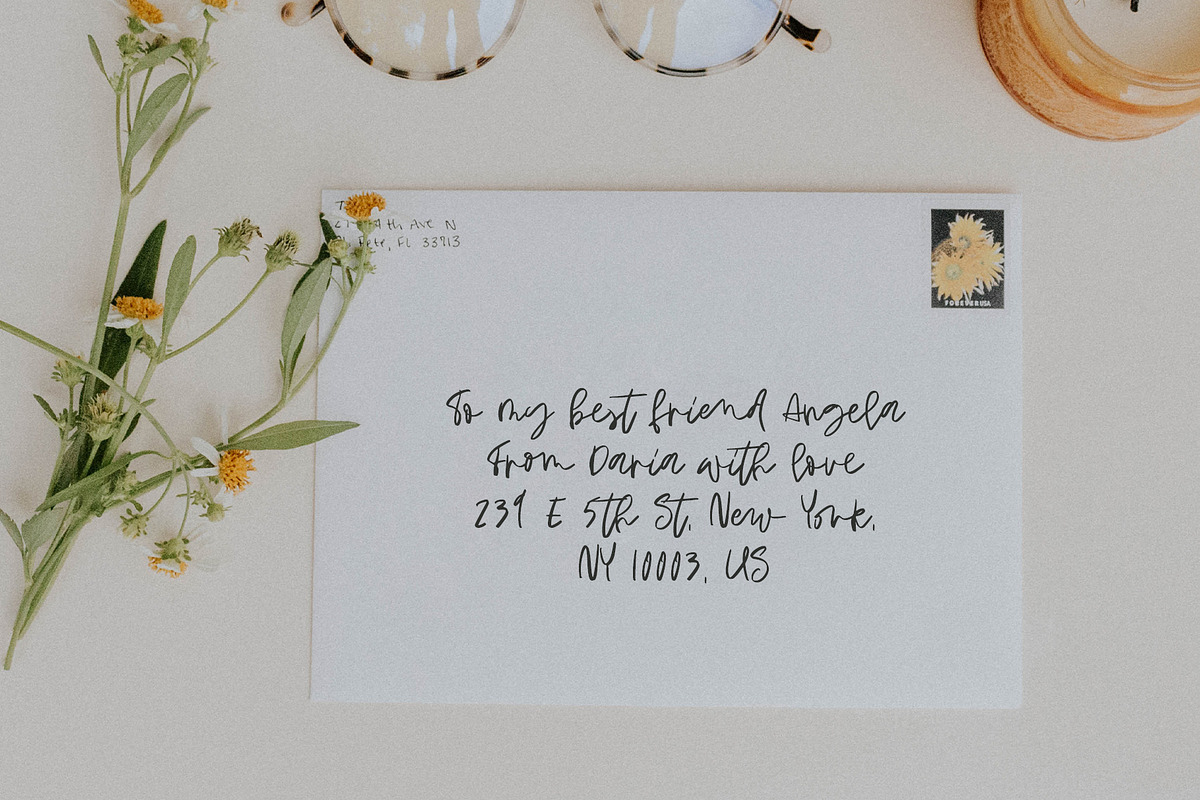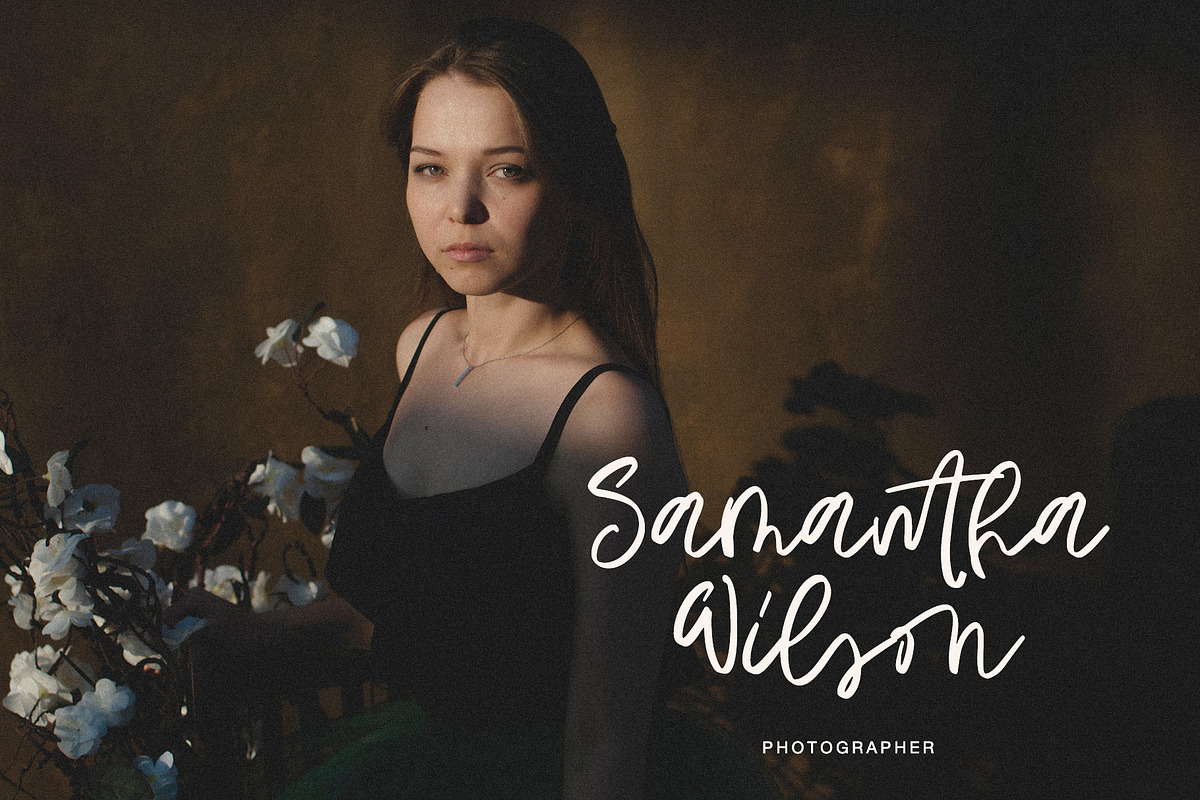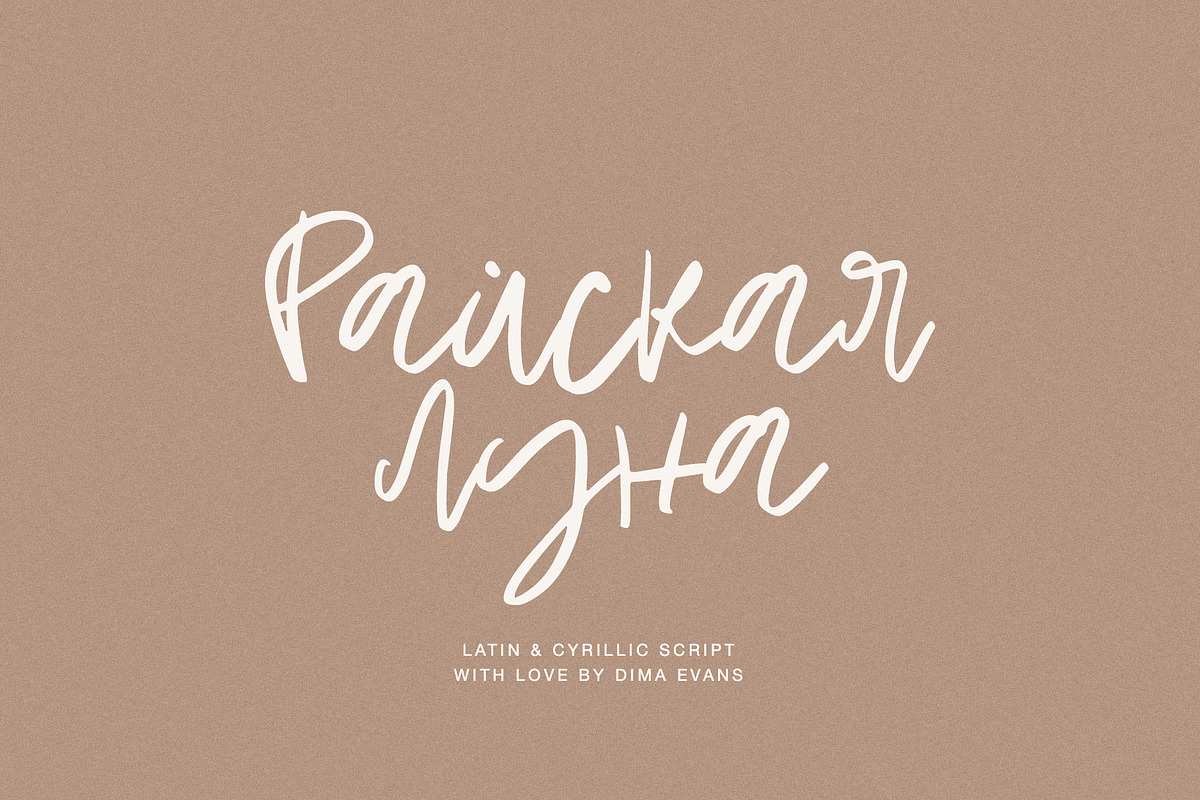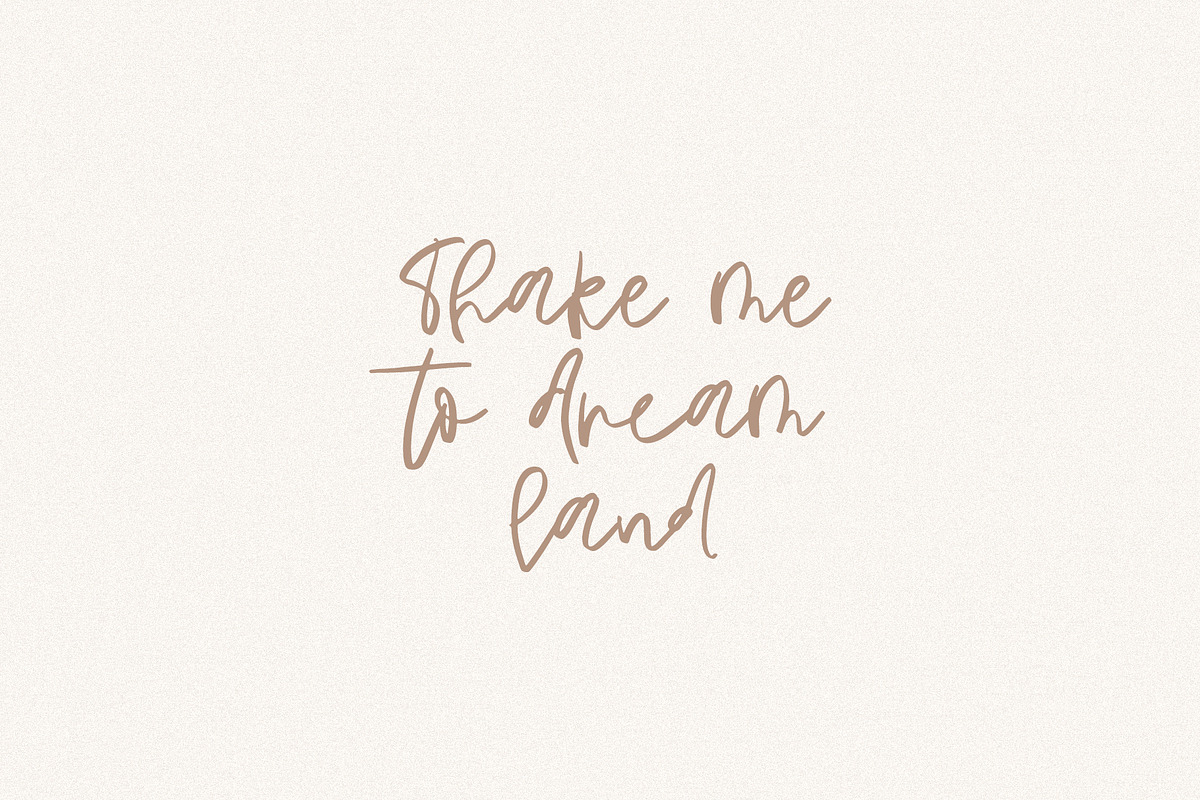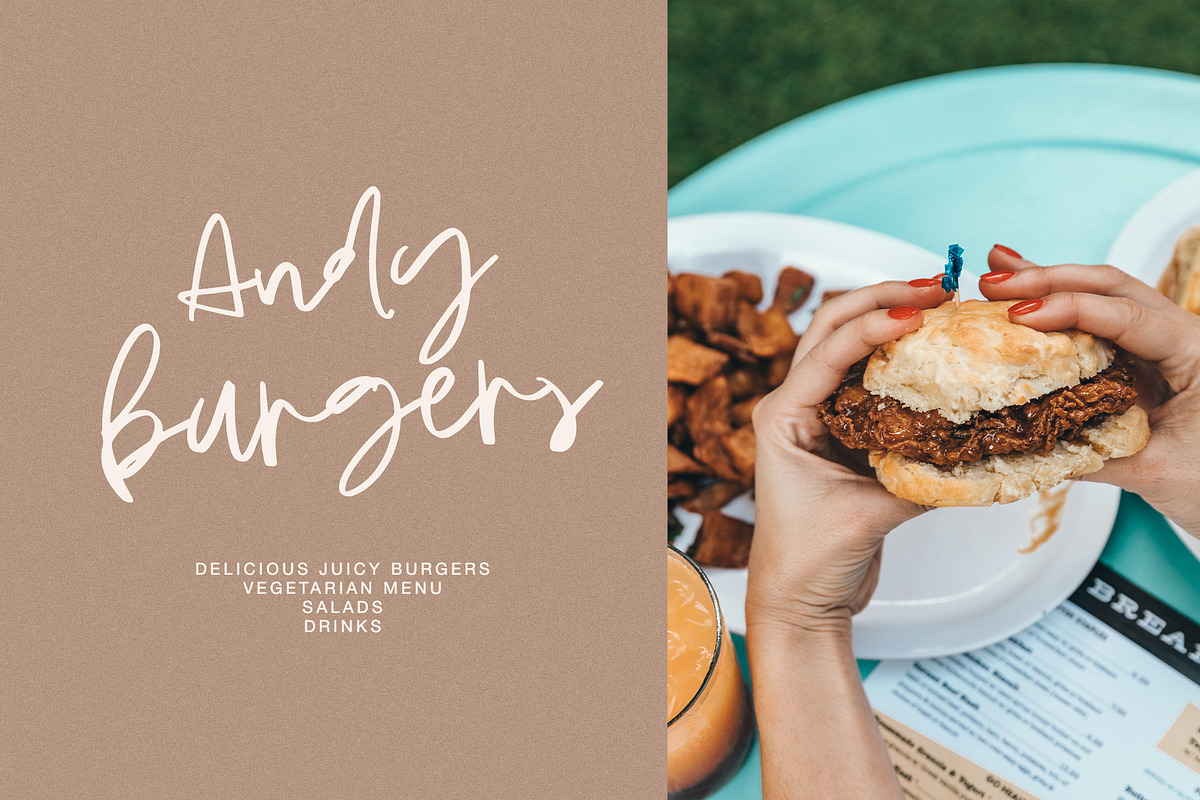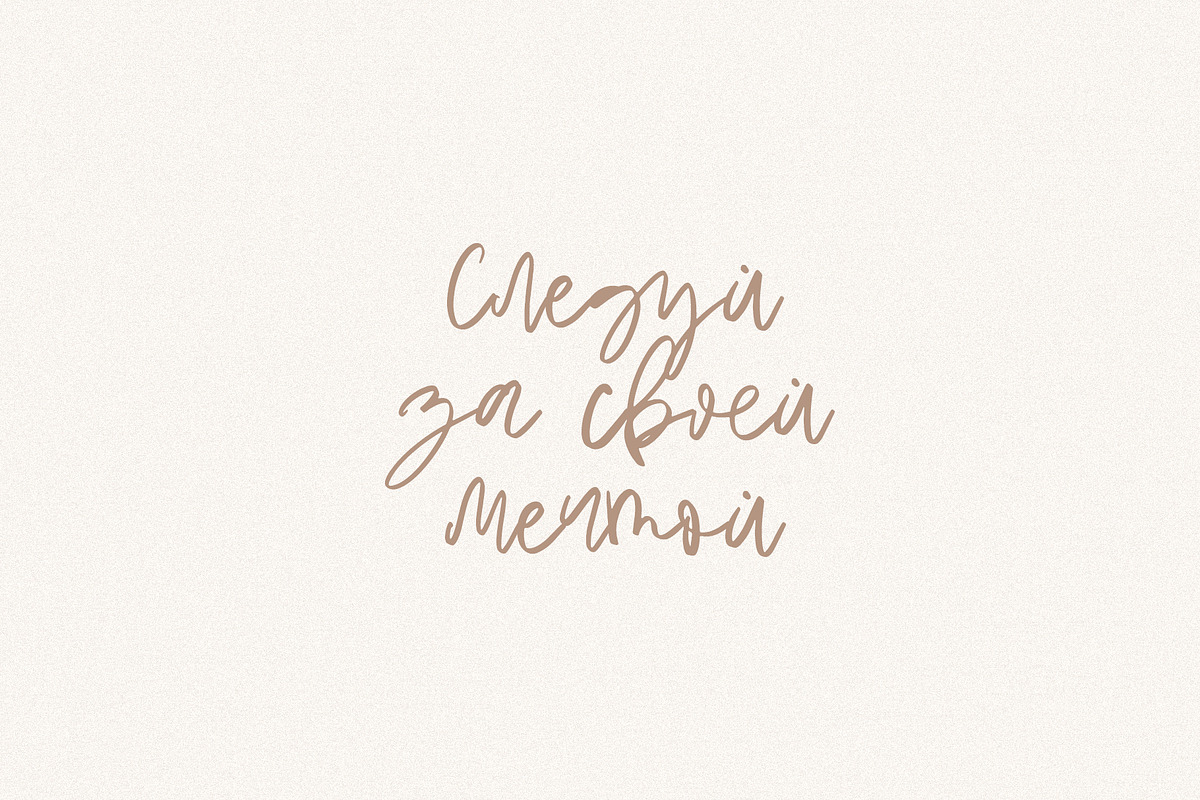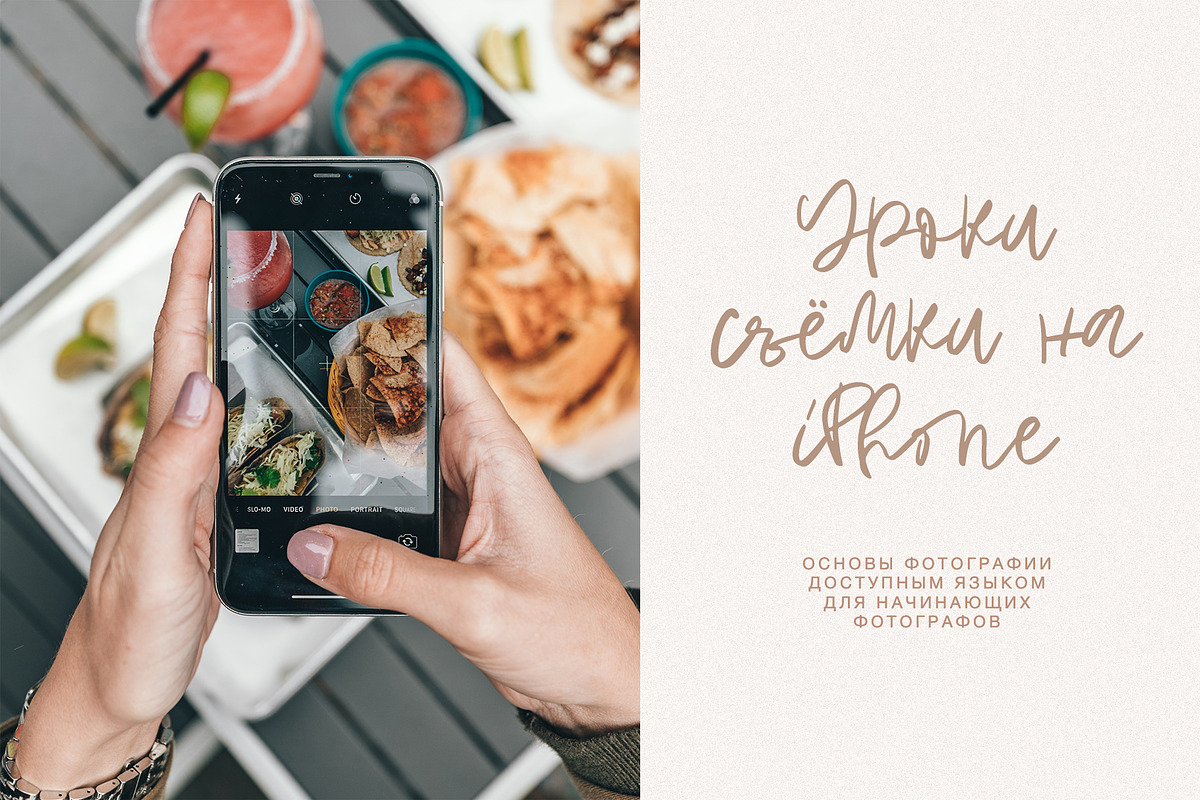
Heaven Moon Cyrillic font
HeavenMoon Latin and Cyrillic Script
HeavenMoon it is a Calligraphy chick font with exquisite accents. It is perfect for branding, wedding invitations and invitation cards and many more
Font includes a full set of gorgeous uppercase and lowercase letters, numbers, a large selection of punctuation marks, ligatures and Cyrillic support
Latin languages support
Cyrillic languages support
Uppercase and lowercase
Numbers and punctuation